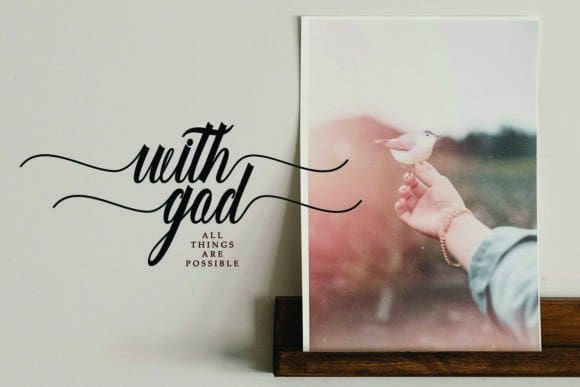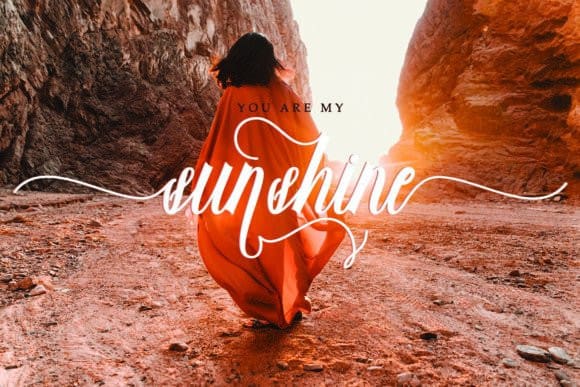
Blondey Script Font
Blondey Script Font model original handwritten simple font, the newest you can get now! With an updated hand calligraphy model with special glyphs that have been given a combination of fantasy and handwritten ink. This font will look beautiful on all designs, Wedding designs, branding materials, blog titles, quotes and invitations, and business cards.